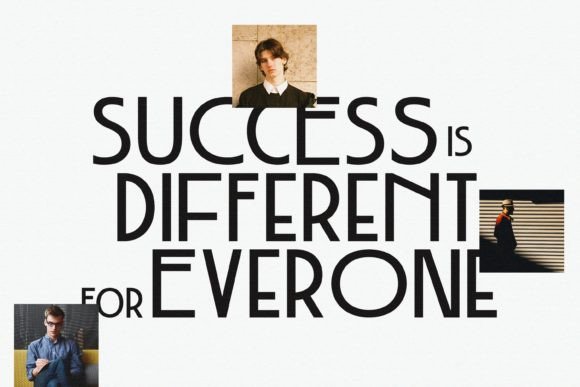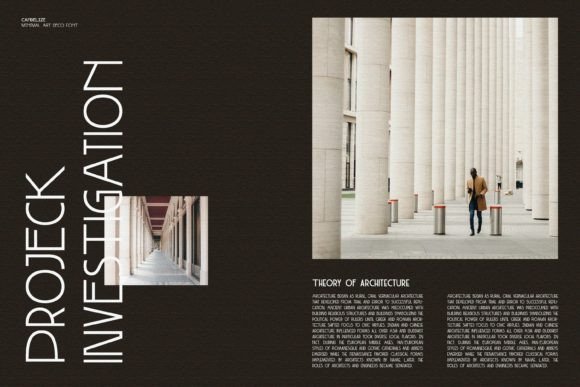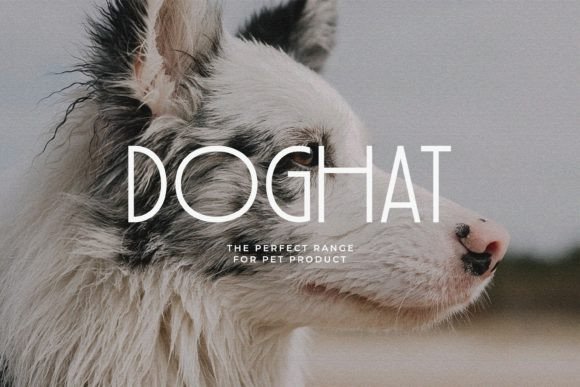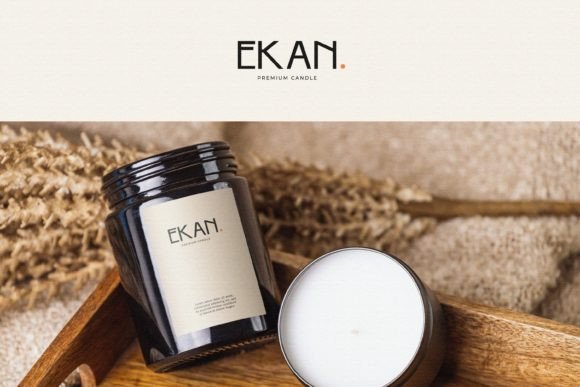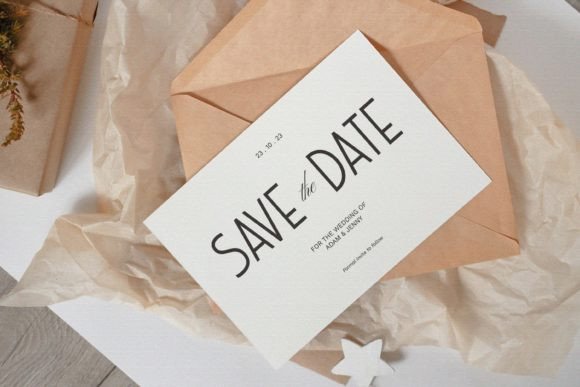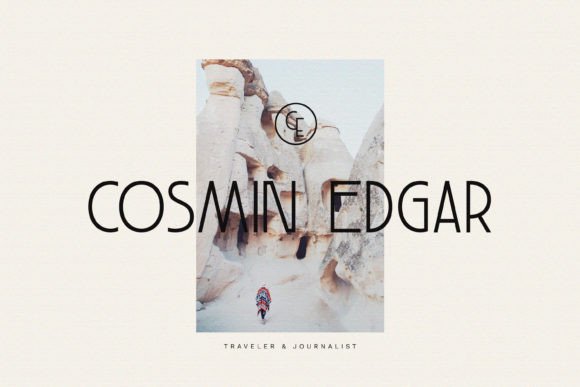
Candelize Font: Elevate Your Designs with Timeless Elegance
In the realm of typography, few fonts manage to strike a balance between classic sophistication and modern flair. Candelize, however, achieves this delicate balance with ease, making it a go-to choice for designers seeking to infuse their projects with a touch of elegance. Inspired by the iconic Art Deco movement, Candelize is a versatile typeface that lends itself beautifully to a wide array of design applications, from sleek logo designs to stylish editorial layouts.
The Art Deco Inspiration
Art Deco, a design style that emerged in the 1920s and flourished until the 1940s, is characterized by its use of geometric shapes, metallic materials, and ornate decorations. This style influenced various art forms, including architecture, fashion, and notably, typography. Candelize draws its inspiration from this rich era, incorporating elements that reflect the movement’s essence: elegance, luxury, and a strong sense of modernity.
Characteristics of Candelize Font
Candelize is not just a nod to the past; it’s a bridge to the future, offering a clean and modern aesthetic that appeals to contemporary design sensibilities. Here are some key characteristics that make Candelize stand out:
• Classic yet Modern: Candelize manages to blend the timelessness of classic typefaces with the simplicity and clarity of modern fonts, making it incredibly versatile.
• Elegant and Sophisticated: The font’s design exudes elegance, adding a touch of sophistication to any project it’s used in.
• Versatile: Whether it’s for a logo, an editorial layout, or any other design project, Candelize proves to be a reliable and stylish choice.
• Art Deco Elements: The font incorporates subtle Art Deco elements, giving it a unique edge and connecting it to a rich design heritage.
Uses of Candelize Font
The versatility of Candelize makes it suitable for a wide range of applications. Here are some of the most popular uses:
• Logo Design: Candelize’s elegant and sophisticated design makes it perfect for logos that aim to convey luxury, quality, and timelessness.
• Editorial Layouts: For magazines, newspapers, and digital publications, Candelize offers a stylish and readable solution for headings and body text.
• Branding and Packaging: The font’s classic yet modern appeal makes it an excellent choice for brands looking to establish a sophisticated and enduring image.
• Web Design: Candelize can add a level of sophistication to website designs, making it ideal for sites that require a professional and elegant look.
Why Choose Candelize?
In a world where design trends come and go, Candelize offers a timeless solution that can elevate your projects to new heights. Here are a few reasons why designers and crafters might choose Candelize:
• Uniqueness: While inspired by Art Deco, Candelize brings a fresh perspective to the table, allowing your designs to stand out.
• Readability: Despite its elegant design, Candelize maintains excellent readability, making it suitable for both headings and body text.
• Customizability: The font comes with a range of weights and styles, offering flexibility for various design needs.
Candelize is more than just a font; it’s a design statement. With its roots in the Art Deco movement and its eye towards modern design principles, Candelize offers a unique blend of elegance and versatility. Whether you’re a professional designer or a crafting enthusiast, Candelize provides the tools to create sleek, stylish, and timeless designs. Embrace the sophistication and elegance of Candelize, and let your projects shine with a touch of classic yet modern flair.